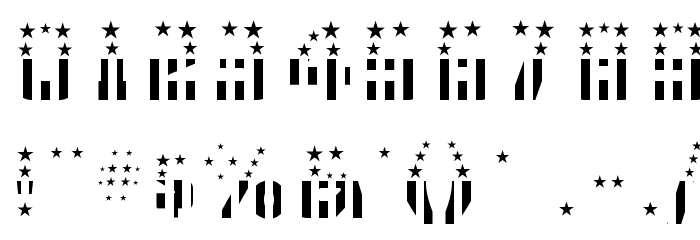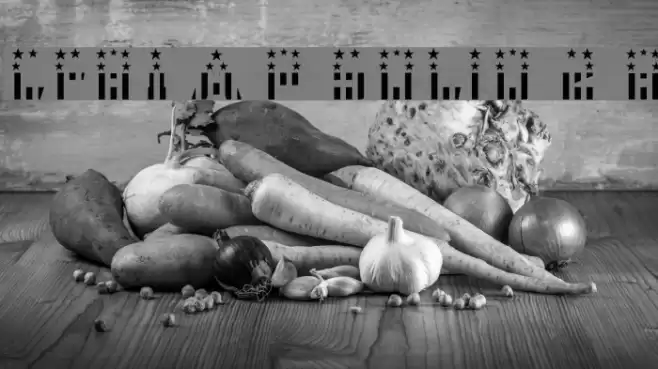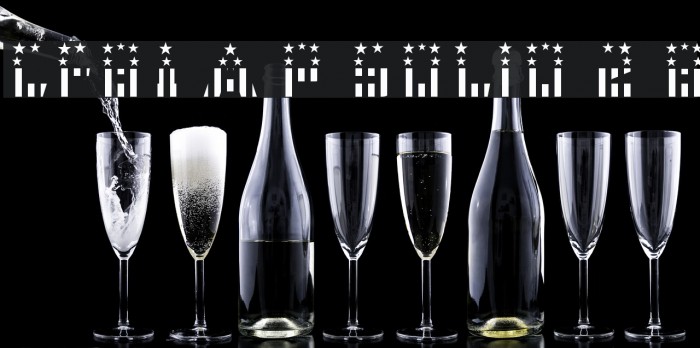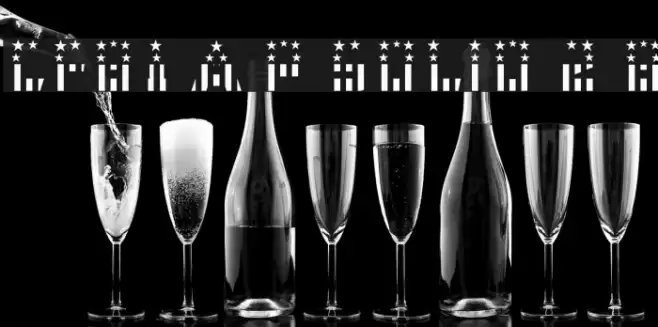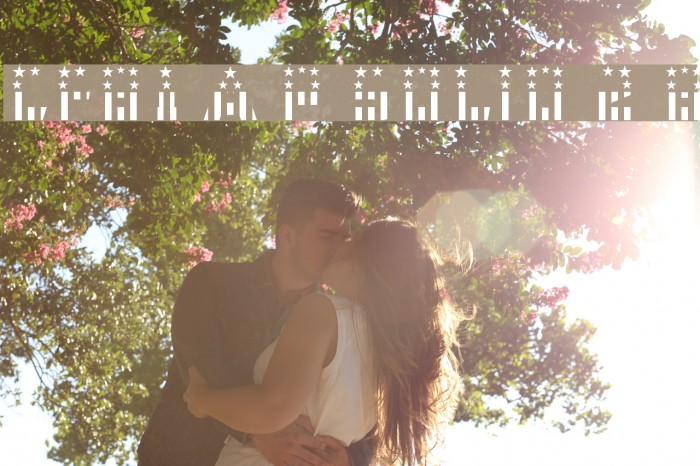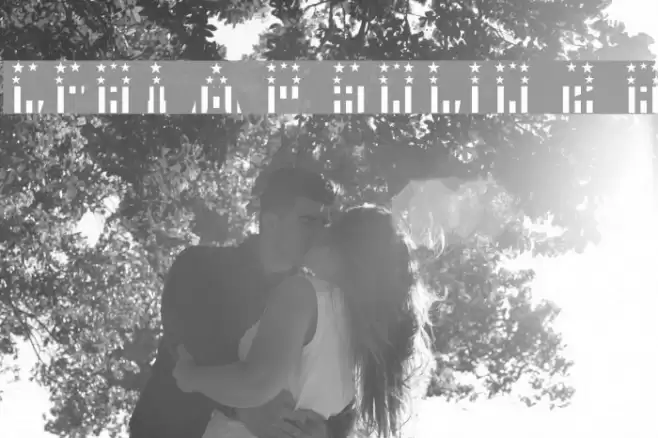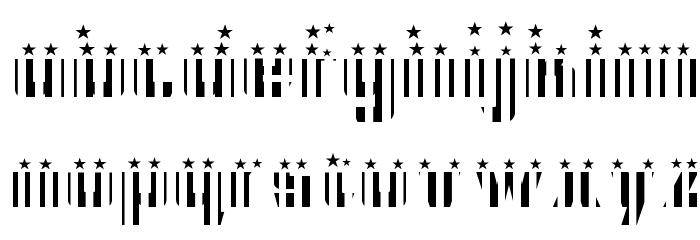
CFB1 American Patriot SOLID 2 Bold Font
CFB1 American Patriot SOLID 2 Bold Description
This font features a bold, patriotic design with stars integrated into each character, giving it a distinctly American theme. The characters are solid and robust, with a stencil-like appearance that adds to its decorative and thematic appeal. The uppercase and lowercase letters maintain a consistent style, with stars prominently displayed above each character. The numbers and special characters follow the same design, ensuring uniformity across the font. This font is ideal for projects that require a strong, thematic presence, such as patriotic events, military-themed designs, or any project that aims to evoke a sense of national pride.
| Proposed Projects | Ideal for patriotic event posters, military-themed designs, or branding that emphasizes national pride. |